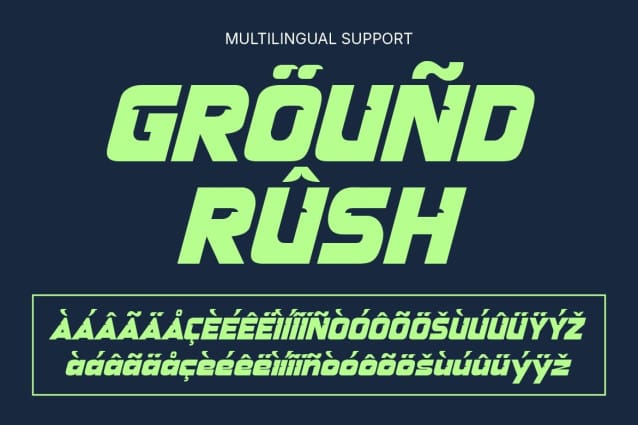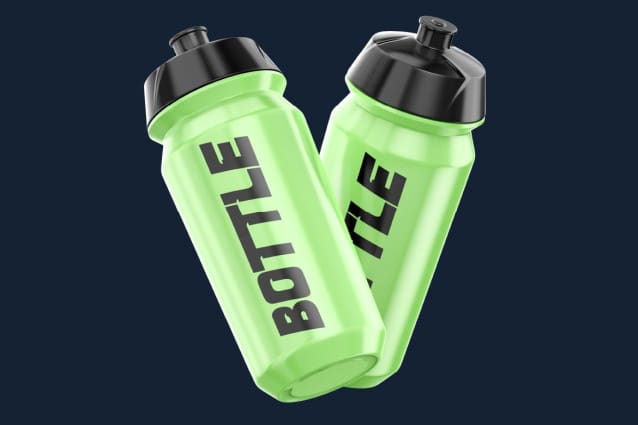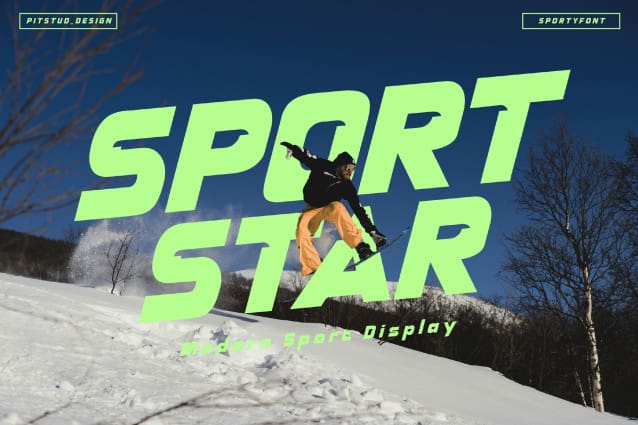
Sportstars Font
Sportstars Font – Sport Event Font, a bold and dynamic sports font designed for champions. This font combines sharp edges with clean curves, inspired by the energy and movement of competitive sports. Perfect for creating striking team logos, jersey numbers, event posters and fitness branding.